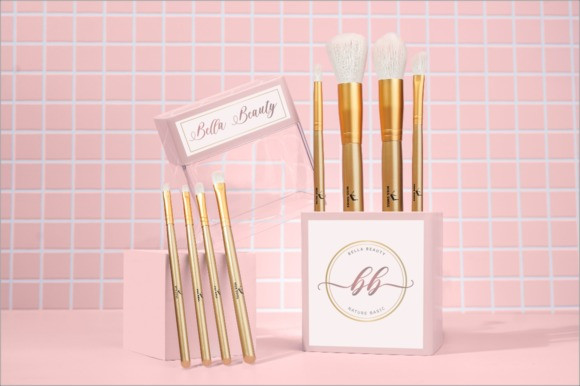
Anabeilla Calligraphy Font is a lovely script font featuring charming, playful characters that seem to dance along the baseline. This font is PUA encoded which means you can access all glyphs and swashes with ease!